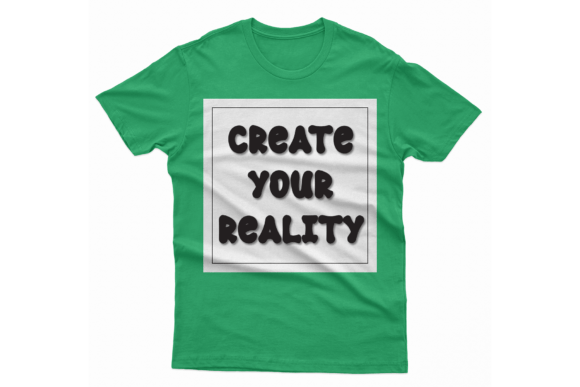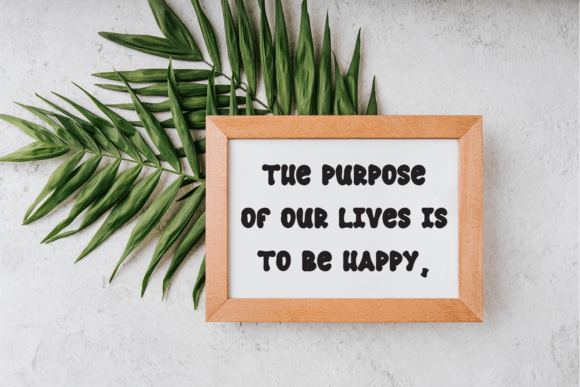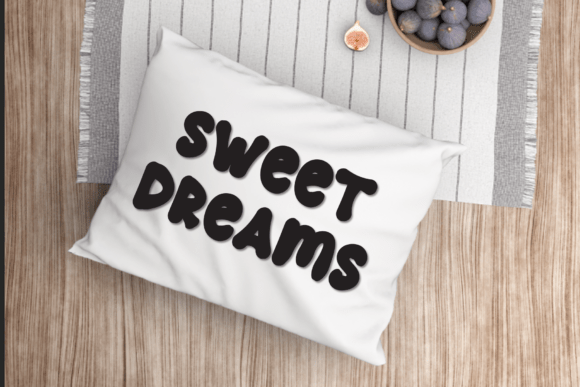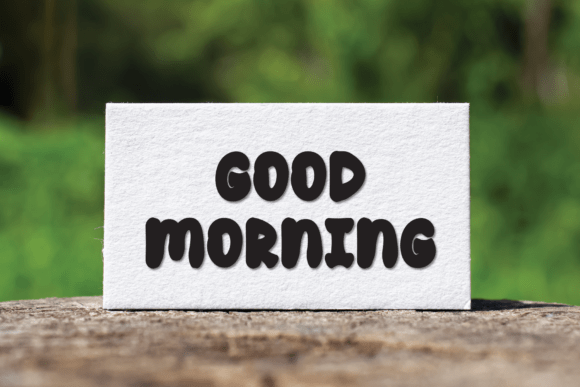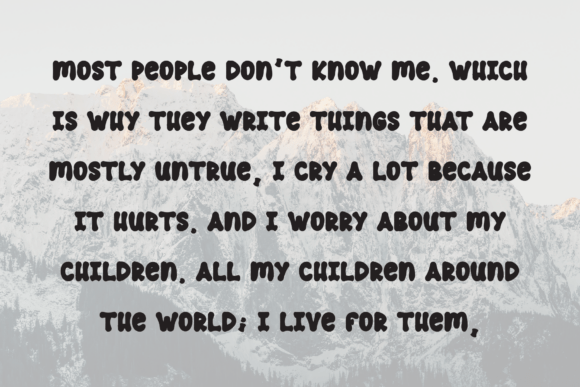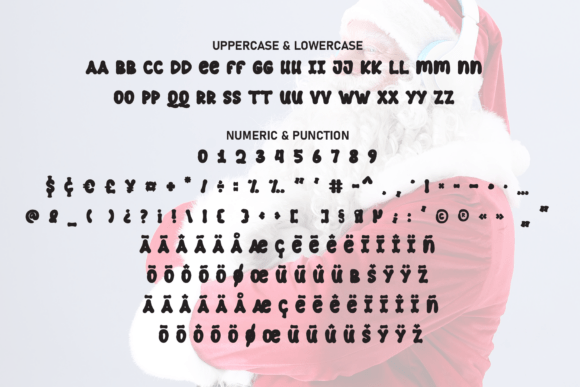
Introduction to Santa Perfect Font
Have you ever stared at a blank design canvas, feeling stuck and unsure of where to begin? This is where the magic of a perfect font comes in – a game-changer that can elevate your creative project and make it truly shine. For designers seeking to add a touch of whimsy and friendliness to their work, the Santa Perfect Font is an exciting new resource that’s sure to delight.
With its modern simplicity and playful vibe, this casual display font is perfect for designers looking to add a fresh and approachable feel to their projects. Whether you’re working on a poster, branding, packaging, or social media graphic, the Santa Perfect Font offers a high-quality design solution that’s both readable and visually appealing.
One of the best things about the Santa Perfect Font is its versatility – it’s available for free download, making it an excellent addition to any designer’s toolkit. Plus, its transparent background and clean shapes make it easy to work with, even for designers on a tight deadline. With the Santa Perfect Font, you can create stunning designs that truly capture the essence of your brand or creative vision.
Key Features of Santa Perfect Font
- Unique, high-quality design for creative projects and holiday-themed graphics.
- Comes with transparent background option for flexible design integration.
- High-resolution font (up to 1024×1024 DPI) for crisp and clear display in print and digital applications.
- Designed with a playful, festive touch, perfect for adding a holiday feel to any creative project.
Honest Review: Santa Perfect Font
One of the standout features of the Santa Perfect Font is its high quality. The font is crisp and clear, making it perfect for creative projects that require a touch of holiday cheer. The transparent background is also a nice touch, allowing you to easily combine the font with other design elements.
- High-quality font with a crisp and clear design ✨
- Transparent background for easy combination with other design elements ✨
- Limited character set, which may not be ideal for longer text-based projects ⚠️
Overall, I’m impressed with the Santa Perfect Font. While it may have some limitations, it’s a great design resource for creative projects that require a touch of holiday cheer. If you’re looking for a high-quality, free font for your next design project, the Santa Perfect Font is definitely worth checking out.
Tips for Getting the Most Out of Santa Perfect Font
Use the font’s high-quality design to create visually appealing headings and titles. Experiment with different font sizes and colors to add depth and contrast to your design. The font’s transparent background feature makes it ideal for creating complex, layered designs.
The Santa Perfect Font is perfect for creating festive holiday designs, such as Christmas cards and gift tags. It’s also great for use in design projects that require a fun, playful font, such as children’s party invitations and birthday cards.
Yes, Santa Perfect Font supports transparent backgrounds. This means you can use it for creative projects that require a high level of design flexibility, such as designing holiday cards or gift tags with a transparent background.
Yes, Santa Perfect Font is a high-quality design resource, carefully crafted to meet the needs of designers working on creative projects. Its high-quality design ensures that it will look great on a variety of mediums, from digital screens to printed materials.